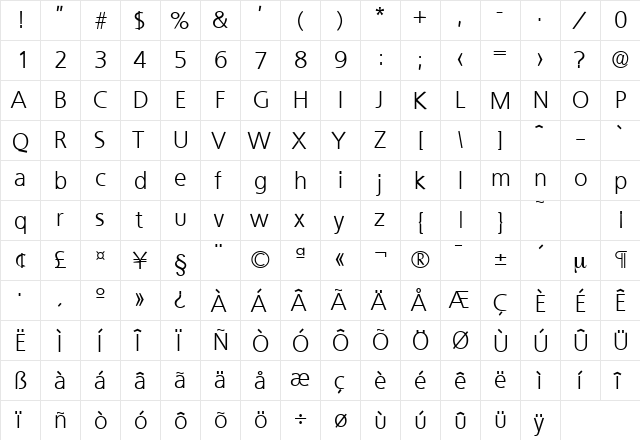
Quebec-Serial-Light Regular
Design Context for Quebec-Serial-Light Typeface
Quebec-Serial-Light offers clean, dependable letterforms without strong stylistic allegiance, making it a practical choice for designers who need flexibility. Its slender proportions lend an understated elegance to any composition.